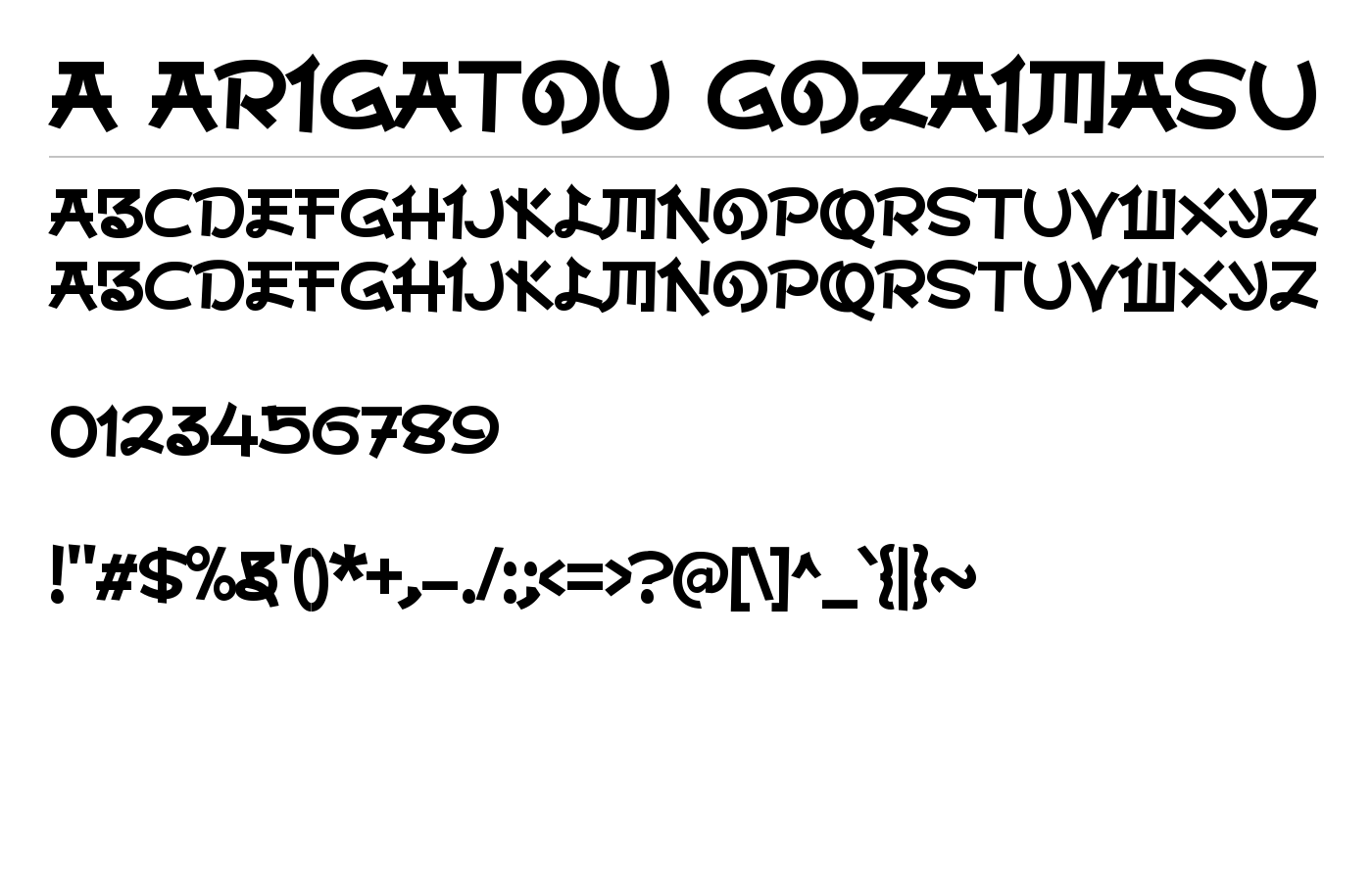
Arigatou Gozaimasu is a bold, decorative sans serif font with a playful and dynamic character. Its strong strokes and unique, angular shapes give it a modern yet whimsical feel, making it ideal for eye-catching headlines, logos, or creative branding where a fun and energetic mood is desired. This font works best in display uses where personality and visual impact are key.
a Arigatou Gozaimasu Font